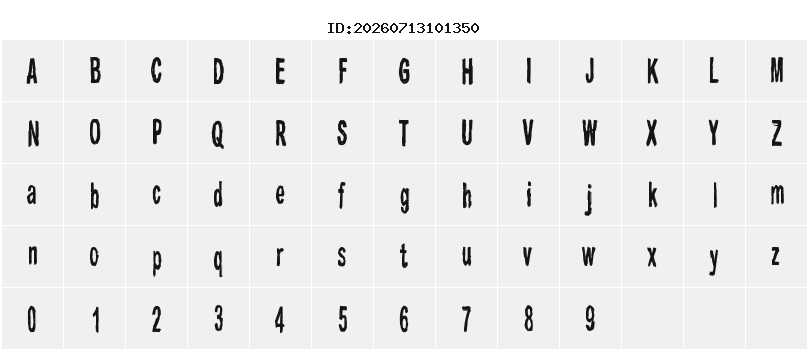
• Font Name: Raparperitaivas
• Designer: junkohanhero
About Raparperitaivas.ttf
Raparperitaivas.ttf is a modern, elegant sans-serif font designed for ultimate readability and visual harmony. Perfect for branding, headlines, web design, and print materials.